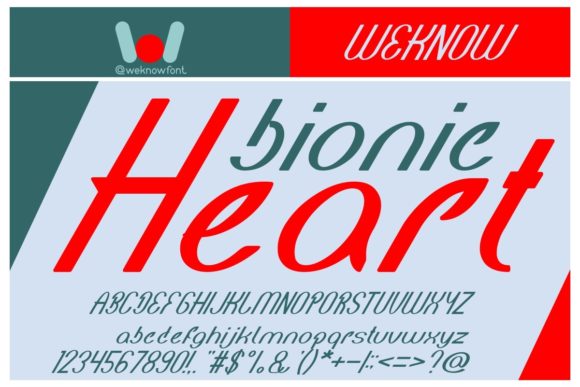
**Introducing Bionic Heart: The Script Font That Will Make Your Book Covers Leap Off the Page**
In the realm of book covers, where first impressions reign supreme, the font you choose holds the power to captivate readers and entice them to delve into your literary world. Enter Bionic Heart, a script font crafted by the renowned designers at weknow that embodies the very essence of allure.
With its elegant curves and effortlessly flowing lines, Bionic Heart dances across the page like a ballet on paper. Its clean and adaptable design makes it a chameleon among fonts, effortlessly conforming to a myriad of genres and styles. Whether you're crafting a spine-tingling thriller, a heart-wrenching romance, or a thought-provoking memoir, Bionic Heart possesses the uncanny ability to enhance the emotional impact of your words.
Imagine your book cover adorned with the captivating script of Bionic Heart. The title, rendered in this exquisite font, becomes a hypnotic invitation, drawing readers into your narrative embrace. The font's innate elegance lends an air of sophistication to your work, hinting at the literary treasures that lie within.
But Bionic Heart is more than just a pretty face. Its versatility extends far beyond book covers, making it an indispensable tool in the creative arsenal of any designer. From eye-catching logos and social media graphics to wedding invitations and personal branding, Bionic Heart has the versatility to transform any project into a work of art.
Its clean and simple style makes it a breeze to read, ensuring that your message will be conveyed with clarity and impact. The font's adaptability allows it to seamlessly integrate into any design aesthetic, from classic and timeless to modern and edgy.
Whether you're a seasoned author seeking to elevate your book's presence or a budding designer yearning to leave an unforgettable mark, Bionic Heart is the font that will ignite your creativity and empower you to craft designs that resonate with your audience.
Embrace the power of Bionic Heart and watch as your creations leap off the page, capturing hearts and minds with their undeniable charm.